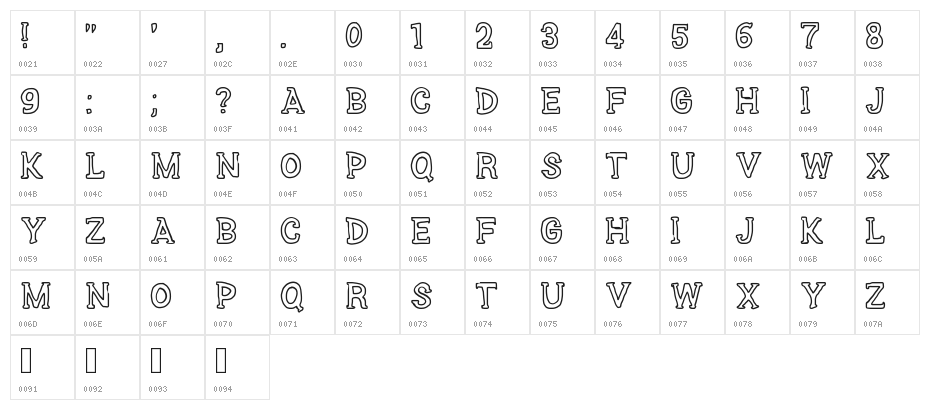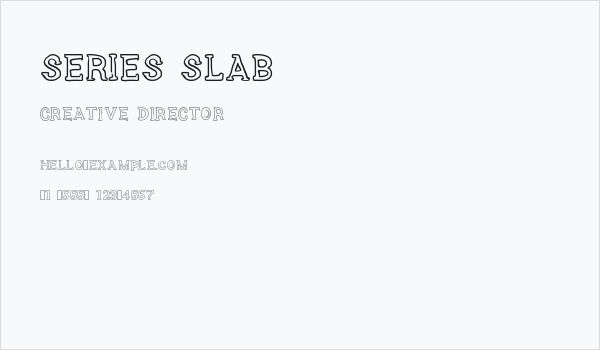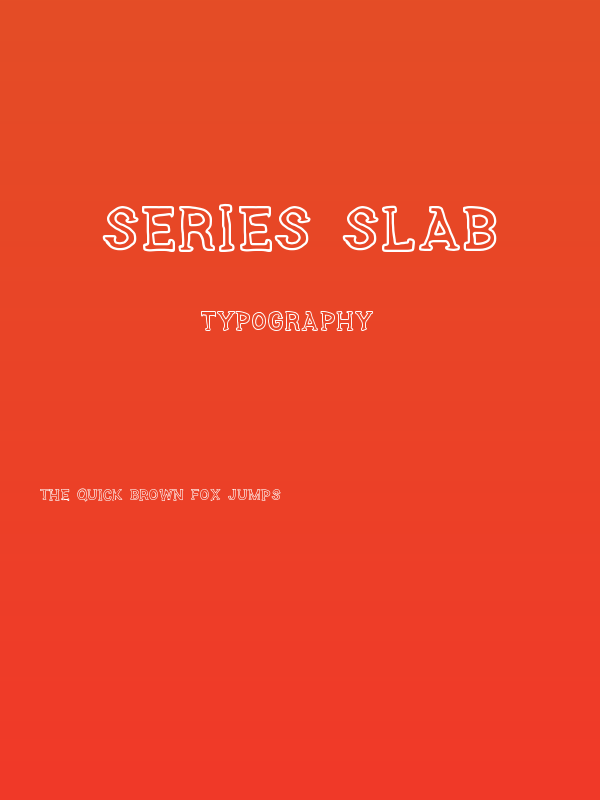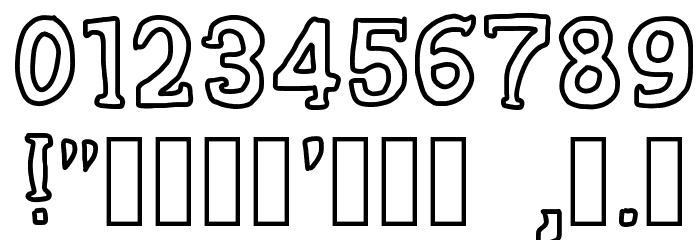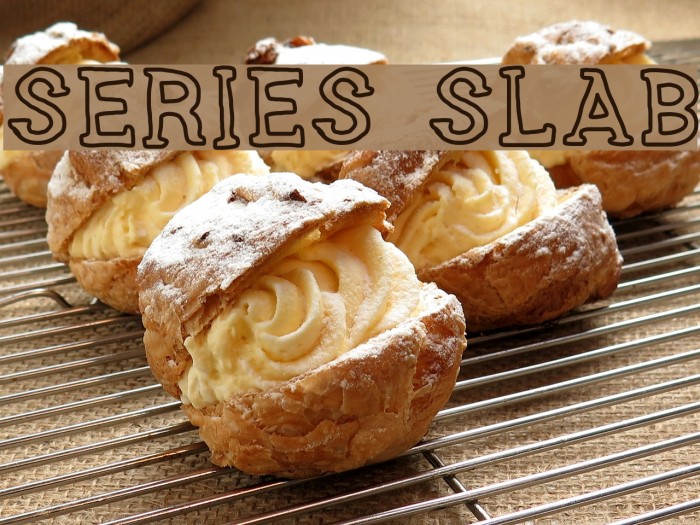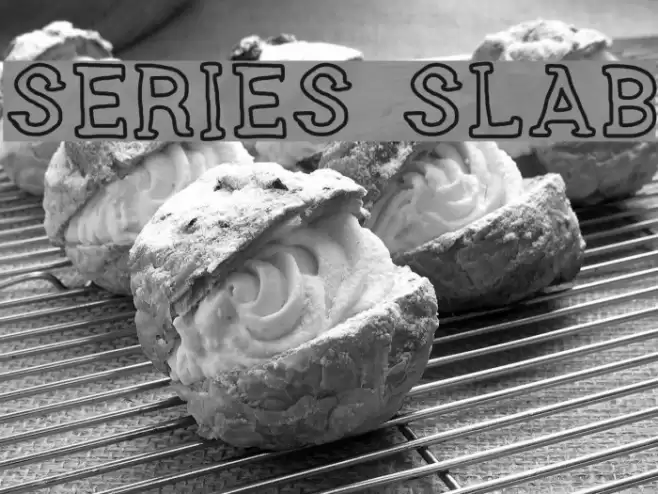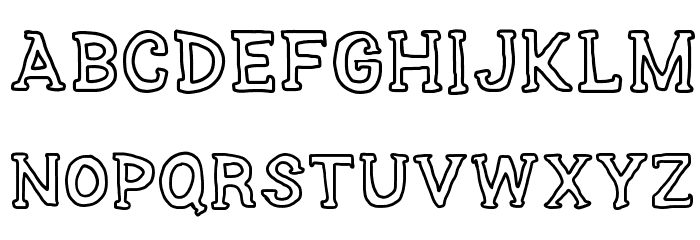
SERIES SLAB Font
SERIES SLAB Description
This font features a bold, slab serif style with a distinct outline that gives it a strong, impactful appearance. The characters are well-defined with thick strokes and a uniform weight, creating a sense of stability and confidence. The uppercase and lowercase letters maintain a consistent design, enhancing readability while adding a touch of modern flair. The numerals are equally bold, ensuring they stand out in any context. Special characters are included, maintaining the same bold outline and slab serif characteristics, making this font versatile for various applications.
| Proposed Projects | Ideal for headlines, posters, branding, and any project requiring a strong visual impact. |